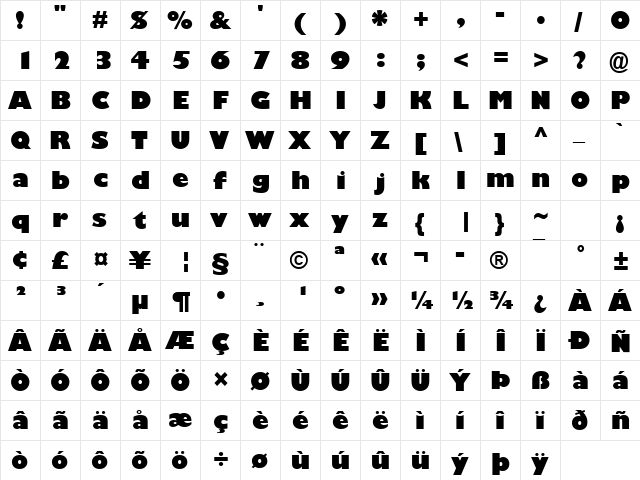
Gill Sans MT Ultra Bold Regular
| Foundry | Monotype Typography |
| Designer | Eric Gill |
Design Context for Gill Sans MT Ultra Bold Typeface
Gill Sans MT Ultra Bold takes a measured approach to typography — its balanced proportions and neutral character make it a reliable workhorse for both digital and print work. Its bold stroke weight gives it real presence on the page.
Pro Tip: Use Gill Sans MT Ultra Bold in both headline and body roles to test its range before committing to a single application.